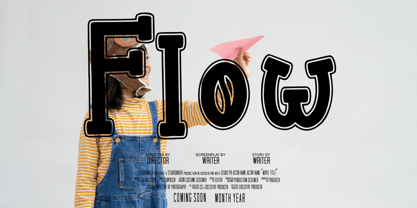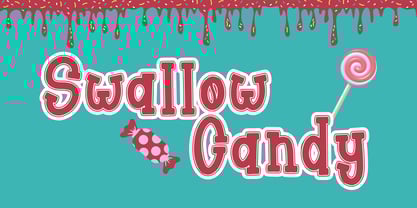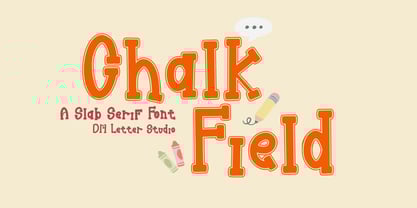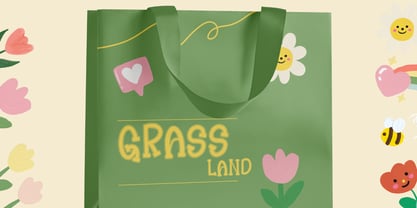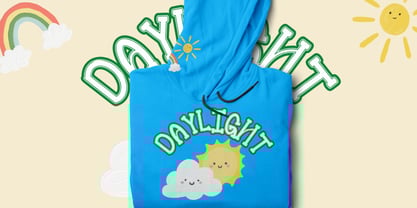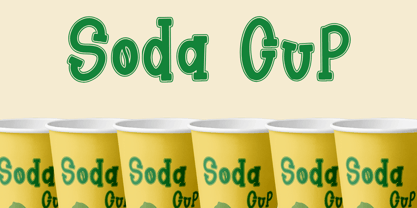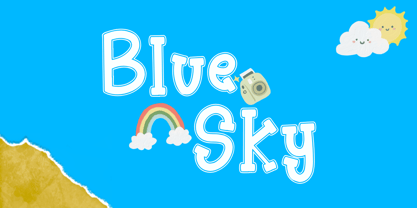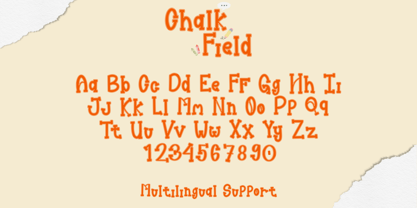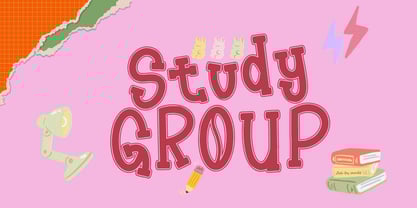
Chalk Field
by DM Studio
The Chalk Field Font Family was designed by Dimas Prasetyo and published by DM Studio. Chalk Field contains 1 styles.
Say hello to Chalkfield, a handcrafted chalkboard-style font that brings vintage school vibes and artistic texture straight to your projects. Designed to mimic real chalk strokes on a blackboard, Chalkfield is perfect for classroom designs, café menus, signage, quotes, packaging, back-to-school projects, and more.
Whether you’re creating printables, posters, labels, or digital graphics, Chalkfield adds a charming, rustic personality that feels both nostalgic and stylish.
✏️ Features:
• Authentic chalk-textured letterforms
• Uppercase & Lowercase letters
• Includes numbers, punctuation, and symbols
• Perfect for education, food menus, DIY crafts, and decor
• Works great in both large displays and small text
• Clean and rough edges for a realistic chalk feel